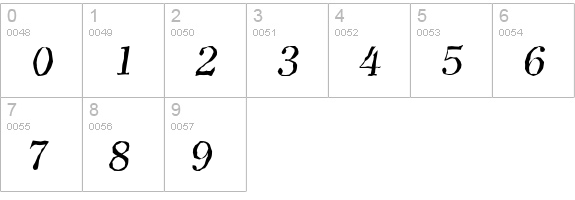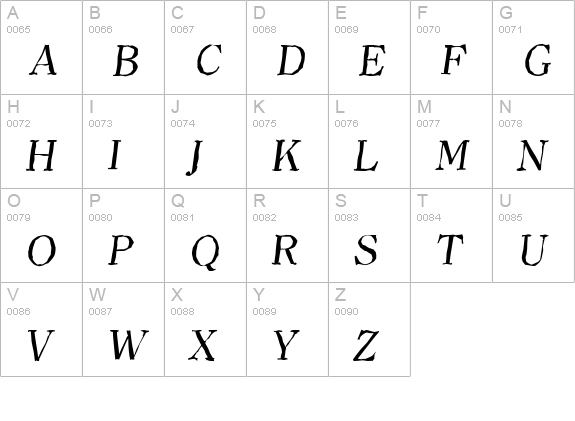
ClearfaceAntique-Italic Font Details
ClearfaceAntique-Italic is a distinctive, italic variant in the ClearfaceAntique typeface family \xE2\x80\x94 well suited to design and typography projects.
ClearfaceAntique-Italic is a classic and elegant font that exudes sophistication and charm. Its stylish italicized design adds a touch of flair to any project, making it perfect for headings, invitations, and other creative endeavors. The flowing curves and graceful lines of ClearfaceAntique-Italic give a sense of refinement and timelessness. Best of all, ClearfaceAntique-Italic is available for free download at FontsMarket.com. This means you can easily access this beautiful font and enhance your designs without any cost. Whether you're a professional designer looking for a versatile typeface or a hobbyist seeking to elevate your projects, ClearfaceAntique-Italic is a wonderful choice that won't break the bank. Download it today and add a touch of elegance to your work!